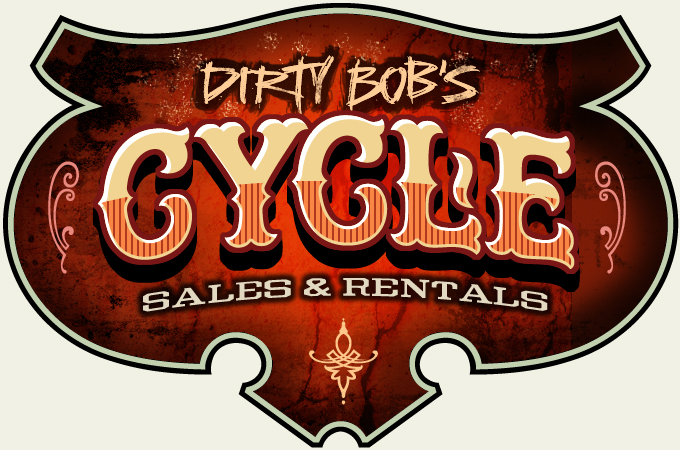
Inspired by the Boston Red Sox logo, which itself is modeled after old circus poster lettering from the late 1800's. This well-balanced font features several variations on the lowercase, plus 12 bonus alternates for maximum creativity. You get a total of 3 fonts, including a lined Shadow version. You might also like: Winchester 73